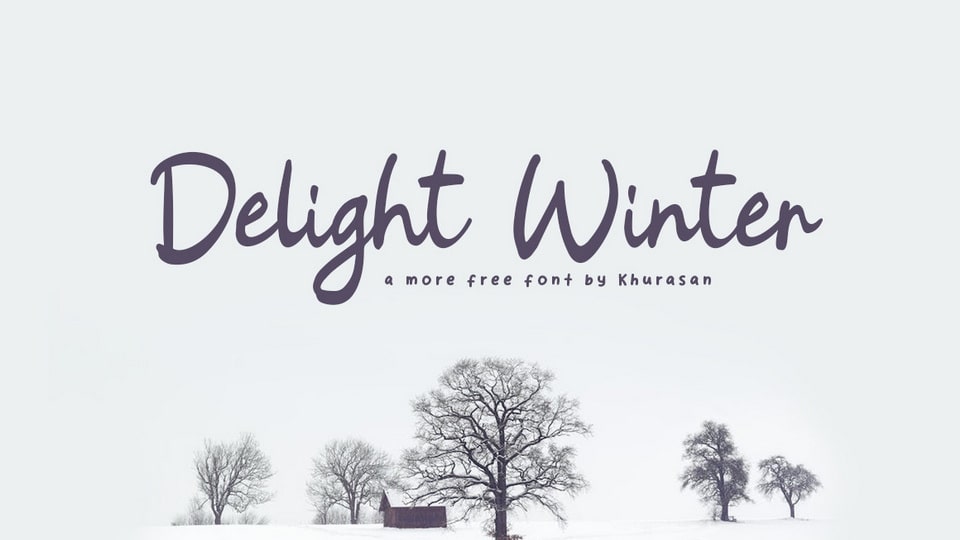
Feb 3, 2025Script & HandwrittenDelight Winter Font Delight Winter is a natural and flowing handwritten script font. It’s perfect for posters, logos, magazines, book covers, banners, and many more. Font DetailsDesigned by: Khurasan (Syafrizal)WebsiteLicense: Free for commercial use Download Delight Winter FontFile size: 173.67 KBCreated: February 16, 2025Updated: February 16, 2025 Download Explore similar fonts Swirly Delight Font Winter Draw Font Winter Mirage Font Lemon Delight Font Winter Coffee Font Winter Christmas Font # Casual# Hand-drawn# Handwriting More fonts by Khurasan (Syafrizal)Alvifont FontZumbo City FontWinter Minie FontMales FontCracker Banana FontFontrue FontInsecure FontOhyou Font